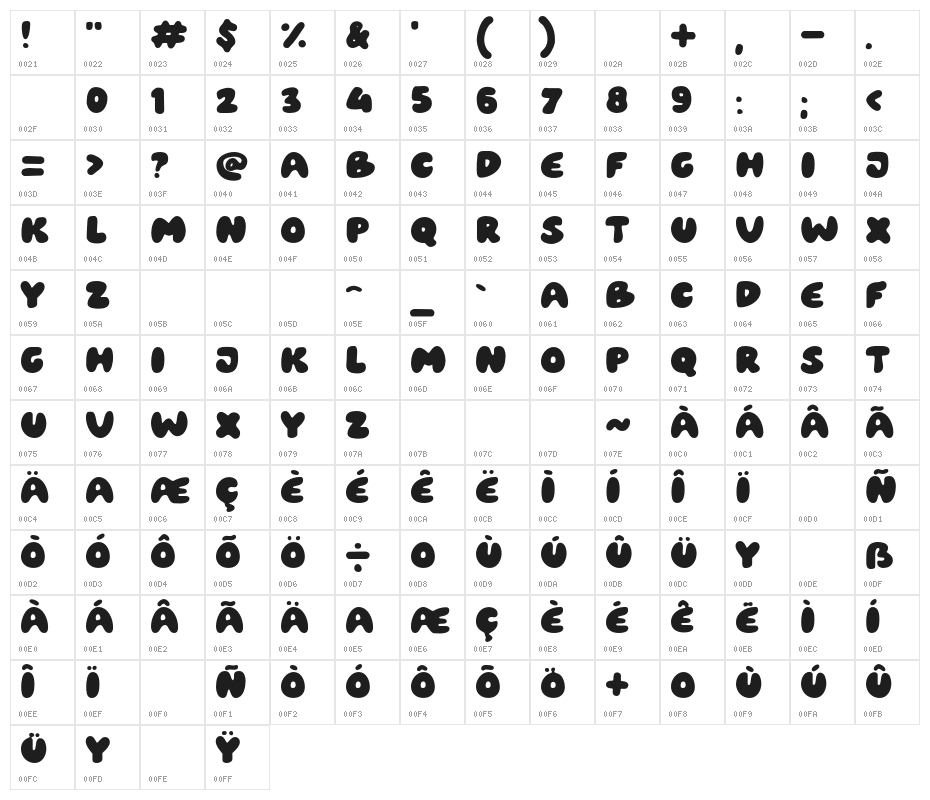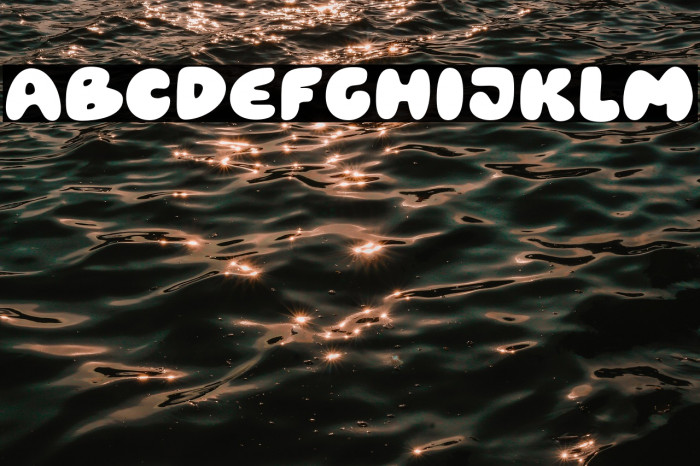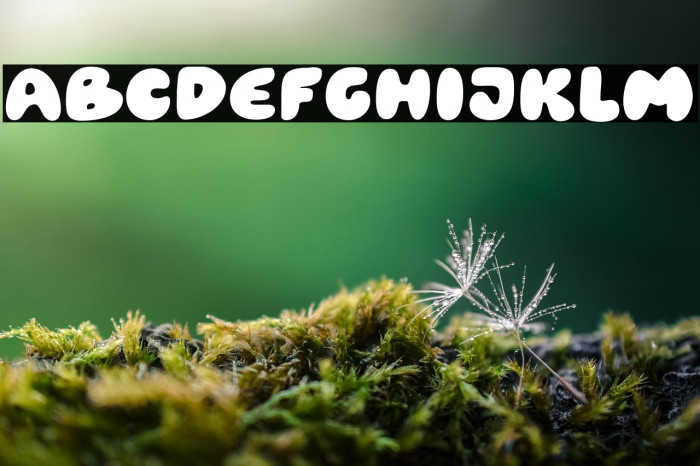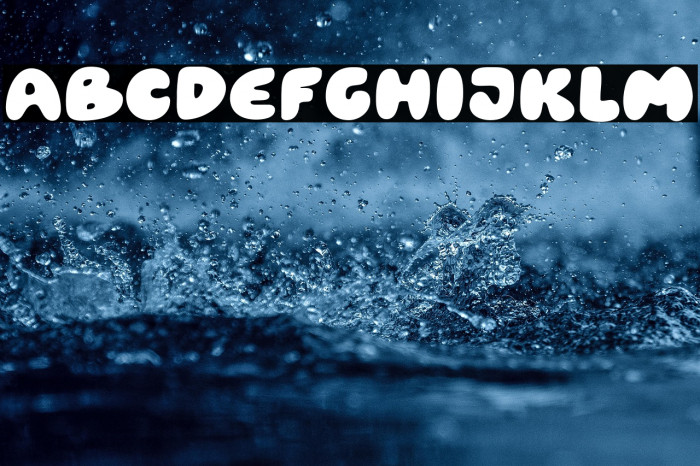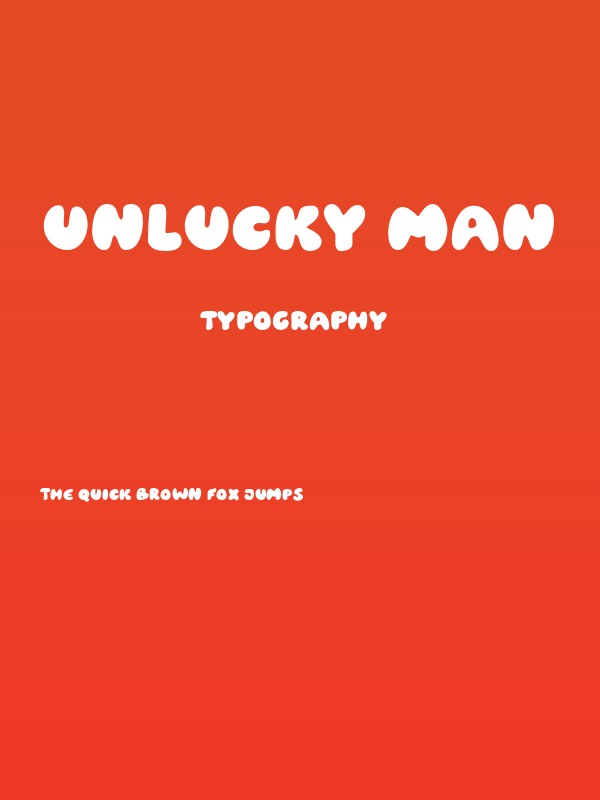
Unlucky Man Font
Unlucky Man Description
A bold, rounded, and playful font with a bubbly appearance, suitable for informal and fun designs.
| Proposed Projects | Children's books, comic strips, playful branding. |